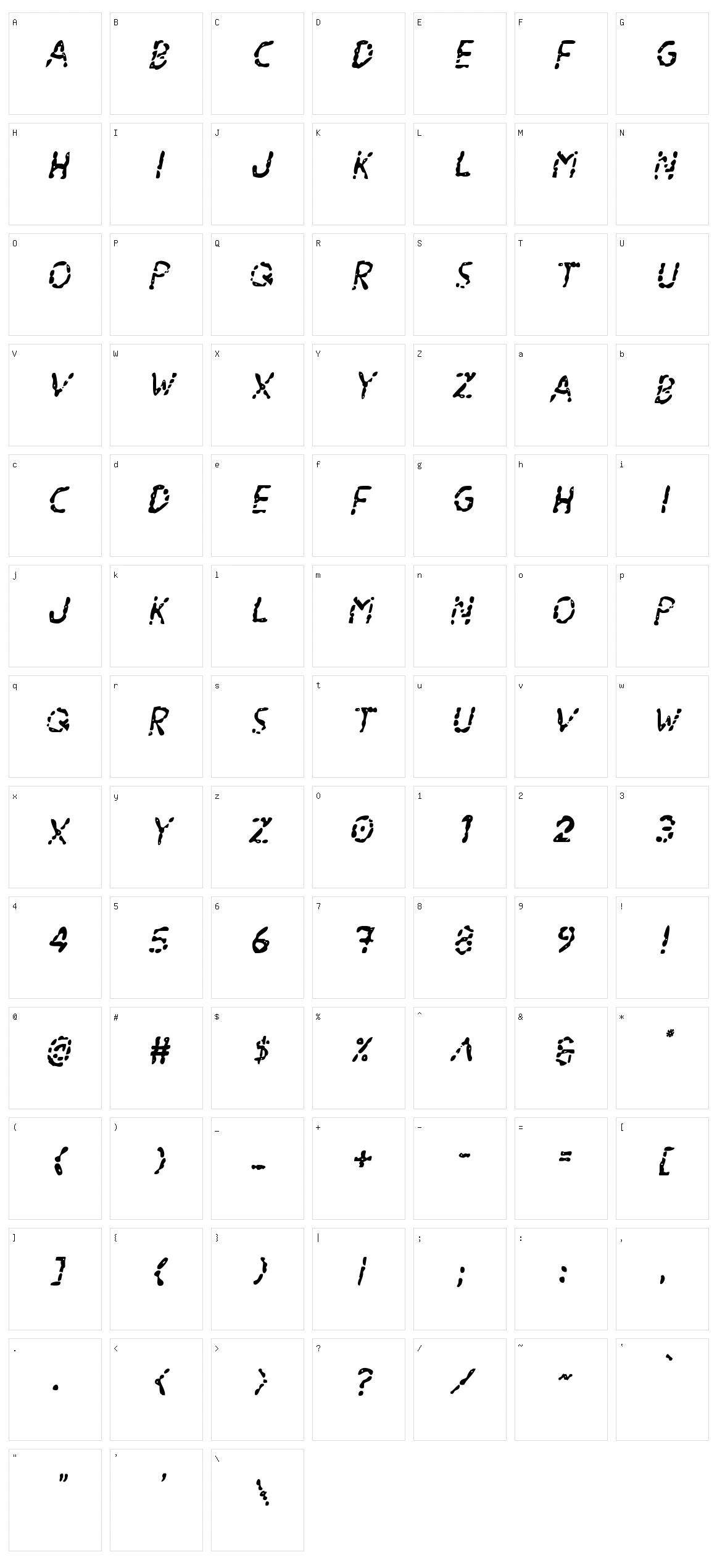
This font comes with the following 19 versions: Regular, Italic, Semi-Italic, Super-Italic, Leftalic, Semi-Leftalic, Condensed, Condensed Italic, Expanded, Expanded Italic, 3D, 3D Italic, Rotated, Rotated 2, Rotalic, Staggered, Staggered Italic, Wavy and Wavy Italic.